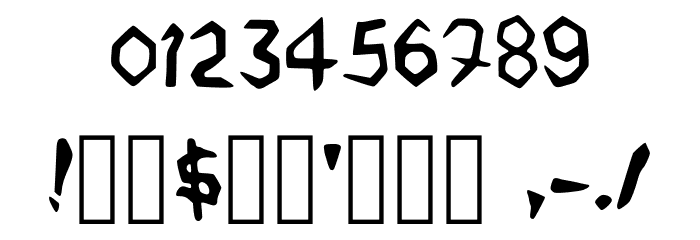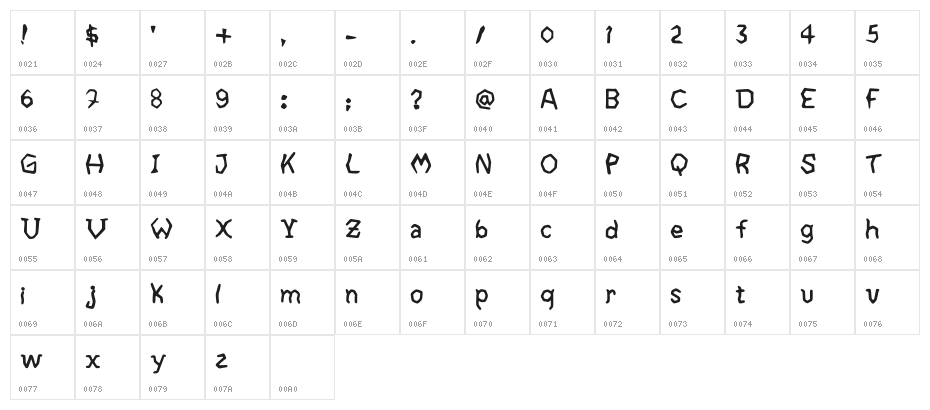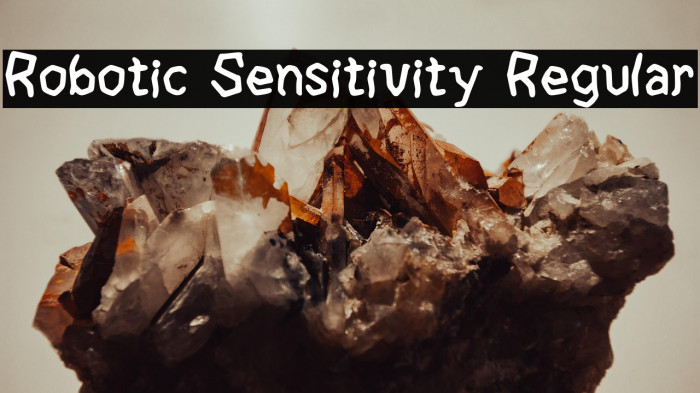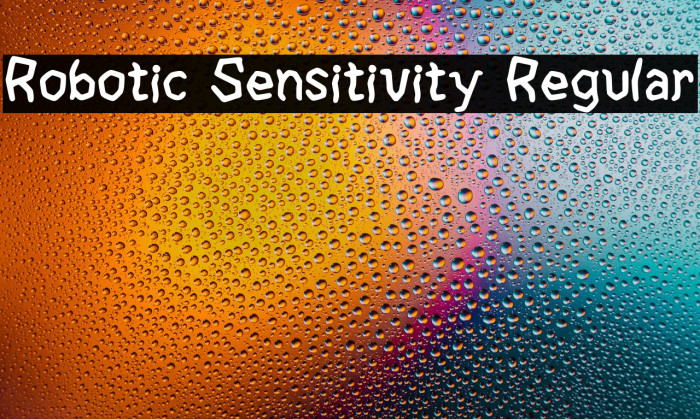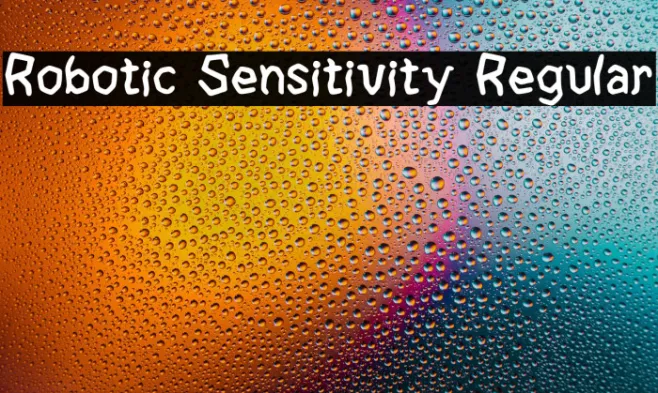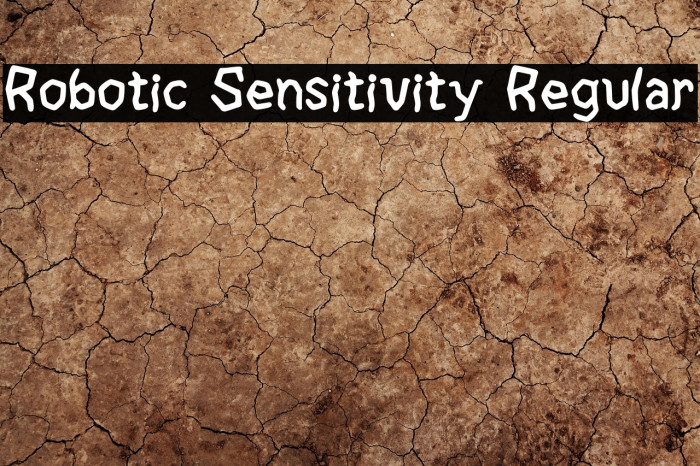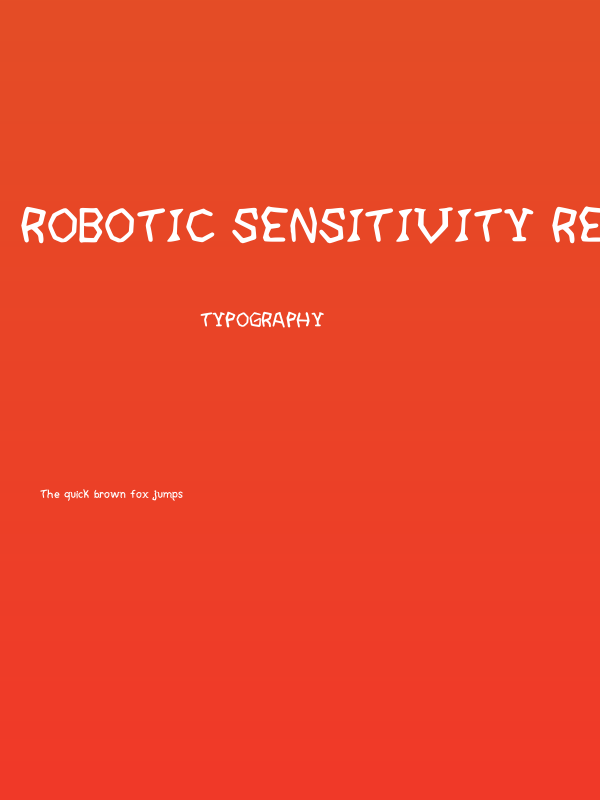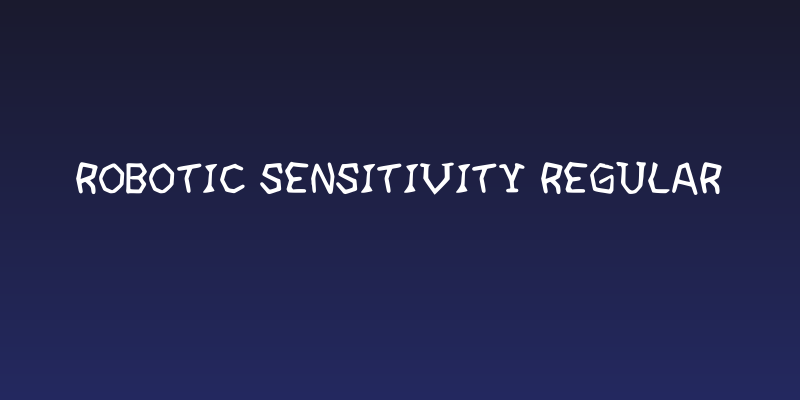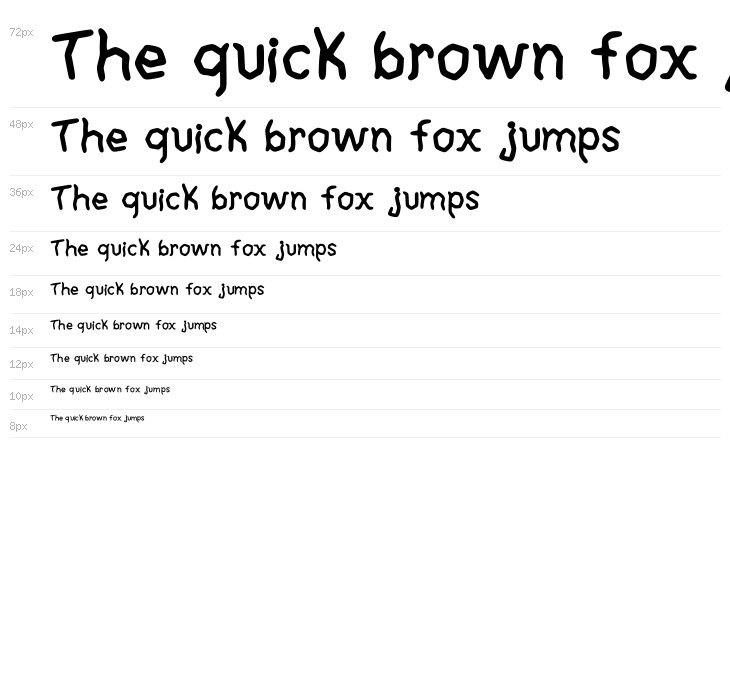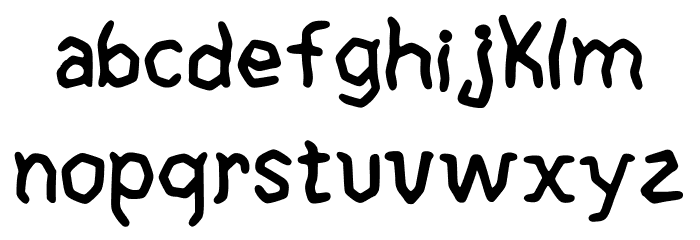
Robotic Sensitivity Regular Font
Robotic Sensitivity Regular Description
This font features a unique, robotic-inspired design with a playful and slightly irregular structure. The characters have a hand-drawn appearance, with angular lines and a bold presence. The uppercase and lowercase letters maintain a consistent style, with the uppercase being slightly more geometric. Numbers and special characters follow the same design principles, adding to the font's cohesive look. The overall impression is modern and quirky, making it suitable for creative and informal projects.
| Proposed Projects | Ideal for tech-themed posters, video game graphics, children's books, and creative branding. |